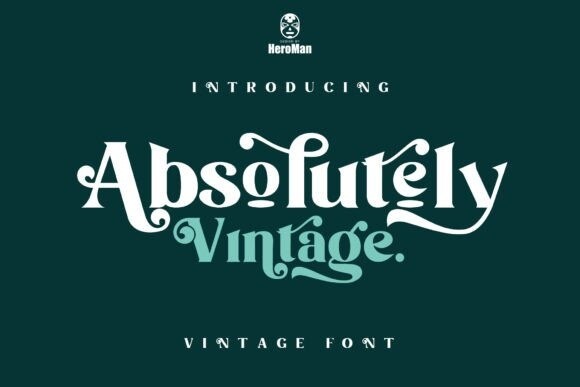
Absolutely Vintage Font
Absolutely Vintage is a unique and interesting display font with a distinctive style. No matter the topic, this font will be an incredible asset to your fonts’ library, as it has the potential to elevate any creation. This font is PUA encoded which means you can access all the glyphs and ligatures with ease!